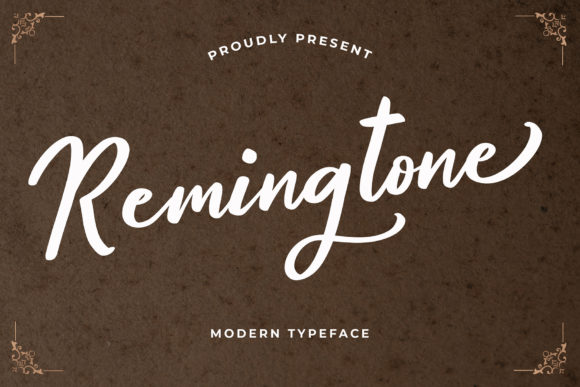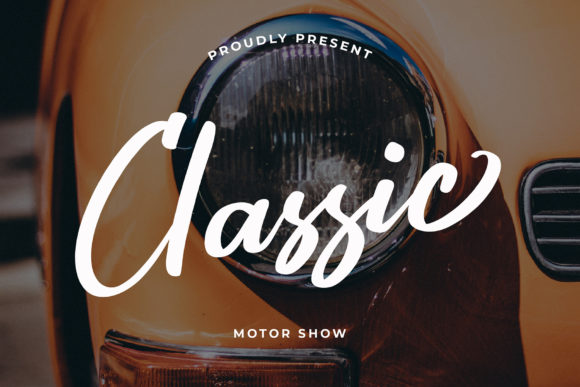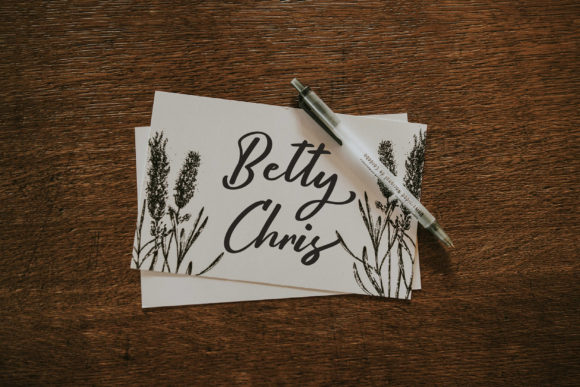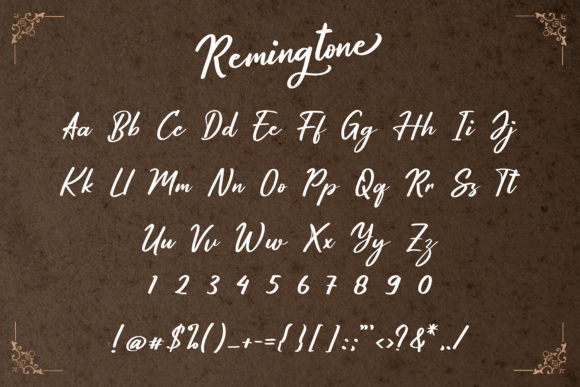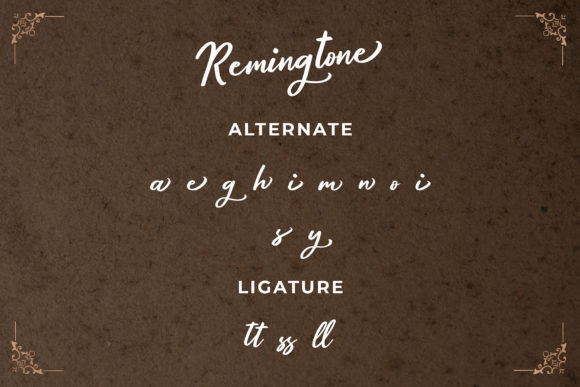
Remingtone Font
About Remingtone Font
Remingtone is a beautiful calligraphy hand-written font with a unique modern style.It will make your next project look like a work of art and give it that classy vibe.